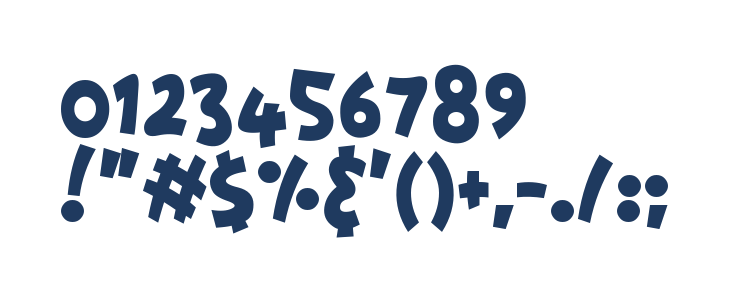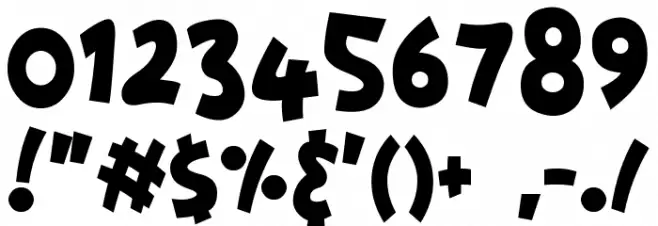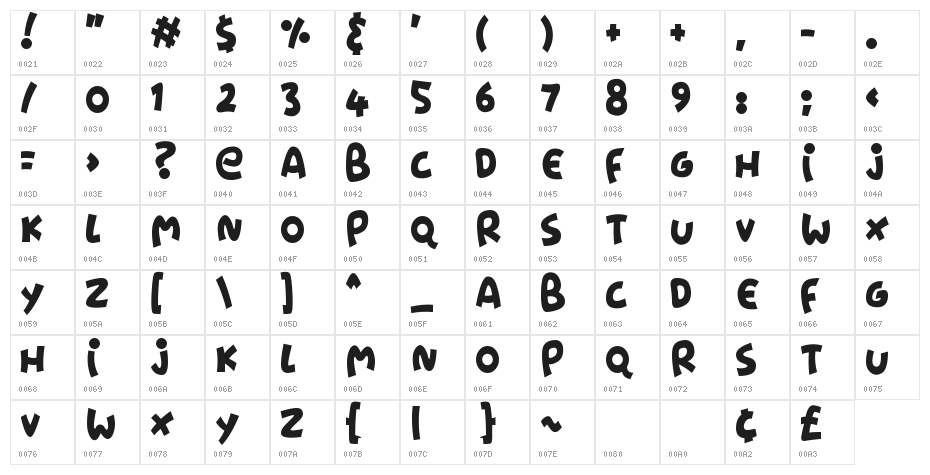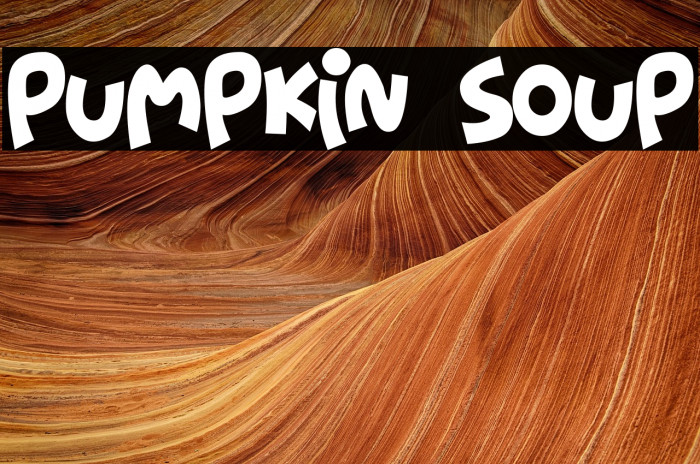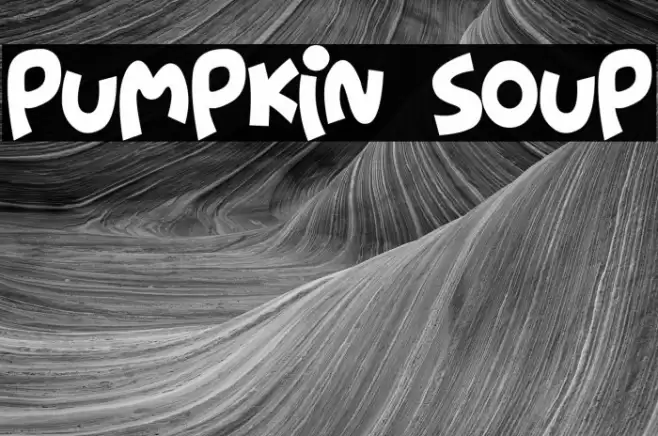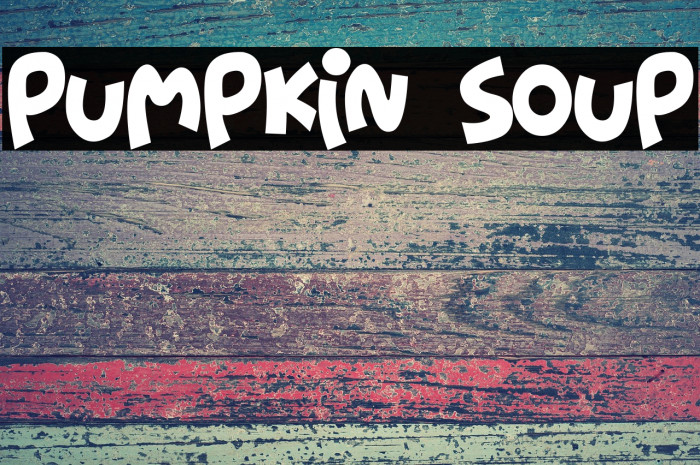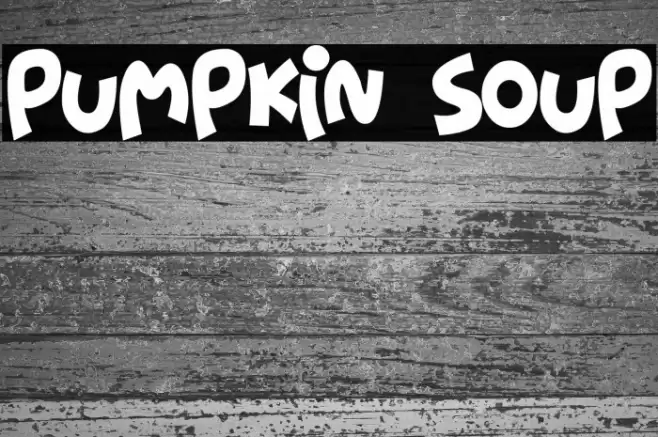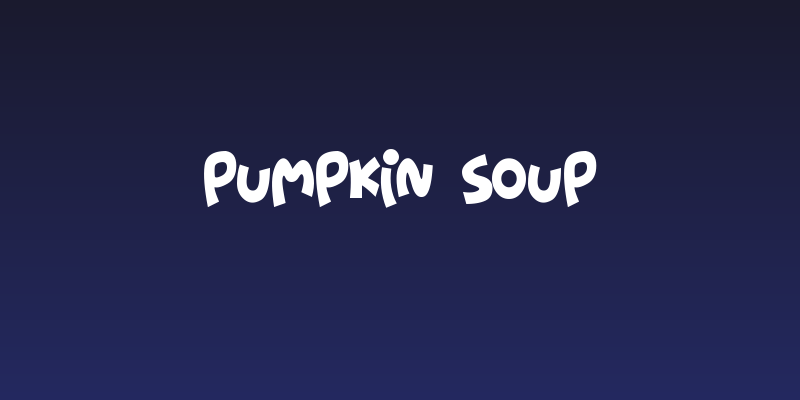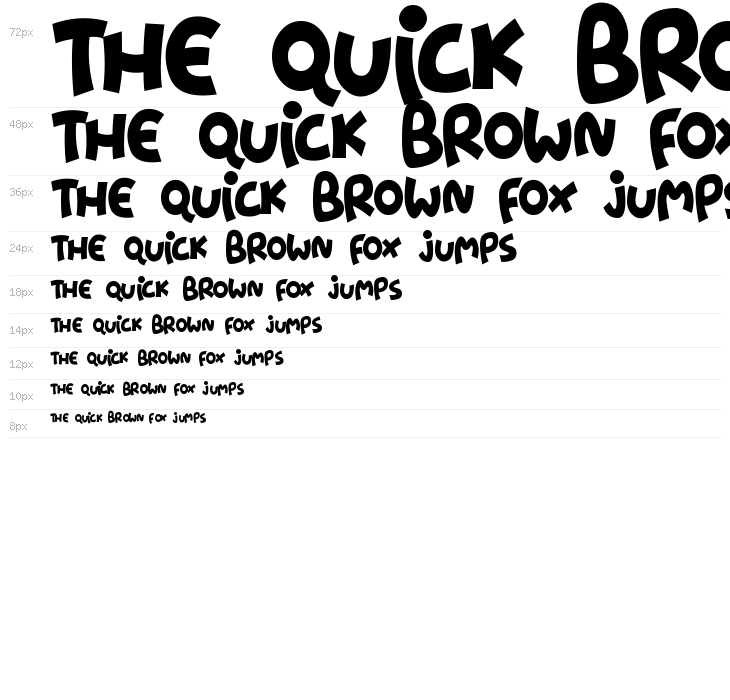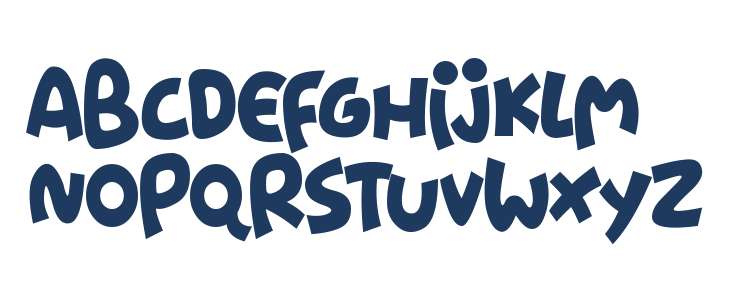
Pumpkin Soup Font
Pumpkin Soup Description
This playful and bold font features a whimsical, hand-drawn style with exaggerated curves and a lively, energetic feel. The letters are rounded and slightly irregular, giving them a friendly and approachable appearance. The uppercase and lowercase characters maintain a consistent style, with a noticeable bounce and varying baseline that adds to the font's charm. The numbers and special characters follow the same playful design, making this font versatile for creative projects. Its thick strokes and lack of sharp edges contribute to a soft, inviting look, perfect for capturing attention in a fun and informal way.